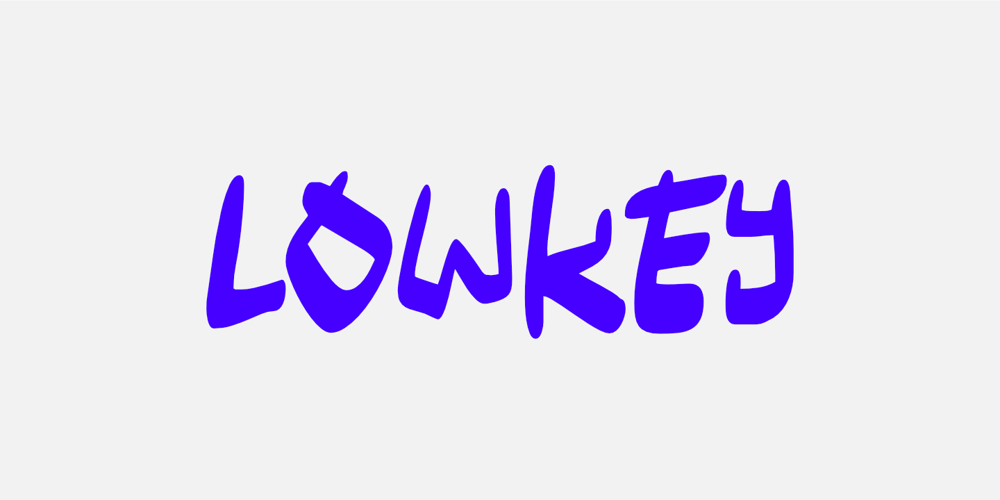
Lowkey Font Family was designed by Nurul Hidayani and published by Olivetype. Lowkey contains 1 styles and family package options. Lowkey is a cool and quirky looking display font. Its informal style and casual vibe will make this font a go-to choice for each of the creations that require a relaxed touch. Lowkey is supporting more than 66 languages, which include: Afrikaans Albanian Catalan Danish Dutch English Estonian Finnish French German Italian Norwegian Portuguese Spanish Swedish Zulu, and more.So what’s included: Basic Latin A-Z & a-z. Numbers, symbols, and punctuations Multilingual Support. Accented Characters : ÀÁÂÃÄÅÆÇÈÉÊËÌÍÎÏÑÒÓÔÕÖØŒŠÙÚÛÜŸÝŽàáâãäåæçèéêëìíîïñòóôõöøœšùúûüýÿžß Thank you